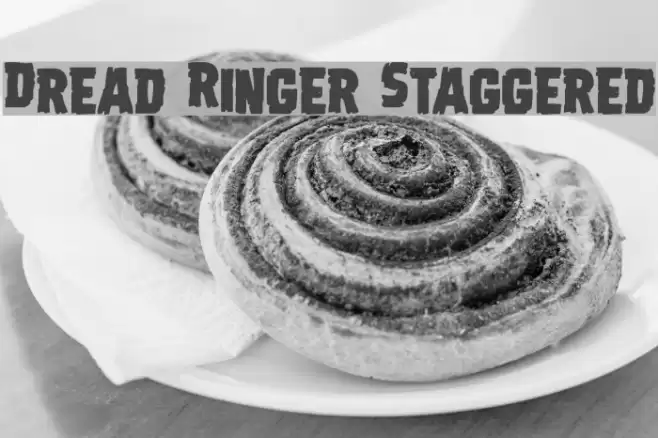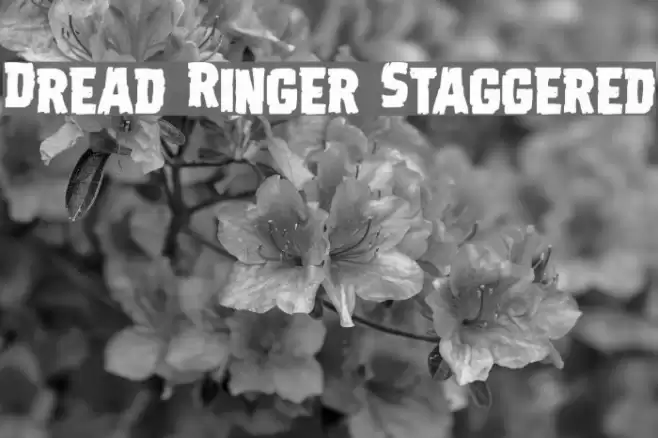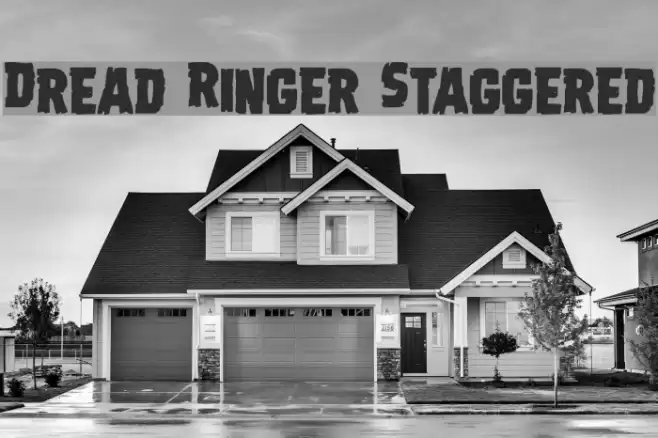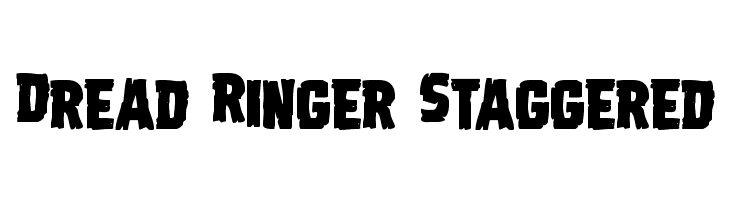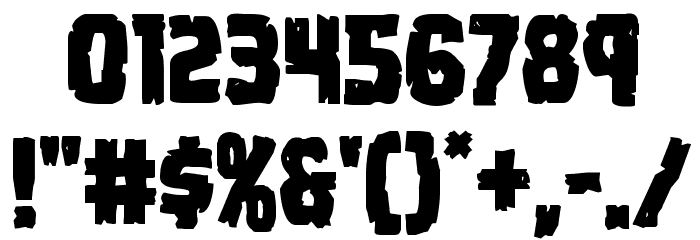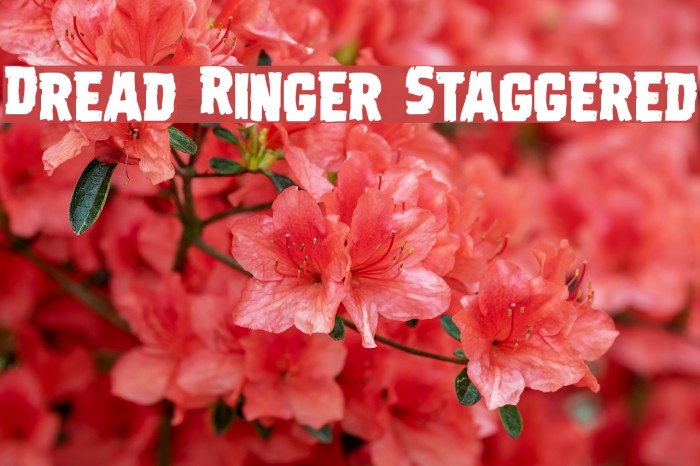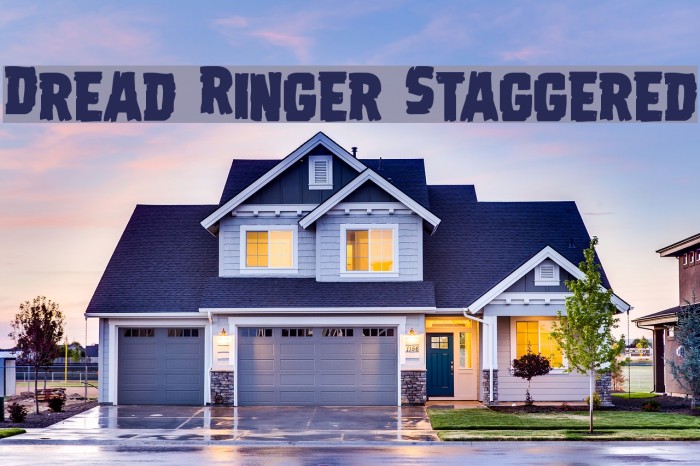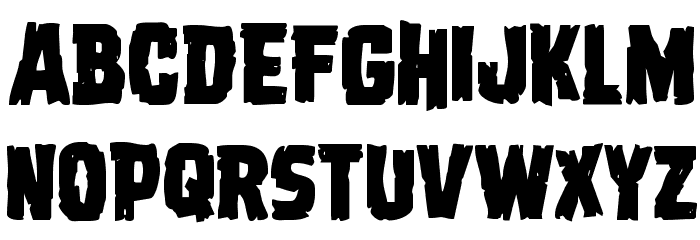
Dread Ringer Staggered Font
Dread Ringer Staggered Description
This font features a bold and rugged design with a distressed, staggered appearance. The characters are heavily stylized, with irregular edges and a hand-crafted feel, giving it a unique and eye-catching look. The uppercase letters are prominent and assertive, while the numbers and special characters maintain the same bold, textured style. This font is ideal for creating a strong visual impact, suitable for designs that require a touch of edginess and creativity.
A bold, rugged font with a distressed, staggered appearance from Horror fonts.
- Proposed Projects: Ideal for poster designs, album covers, branding for edgy products, or any project needing a bold, attention-grabbing typeface.